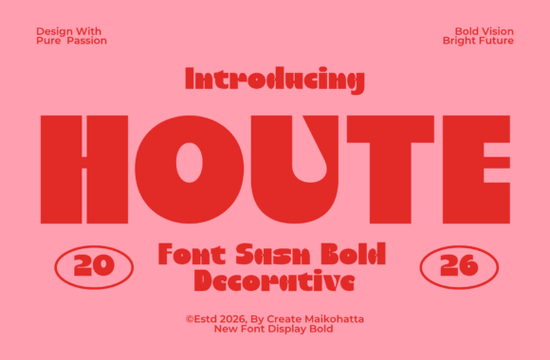
If you're looking for a bold, friendly display font that brings retro charm without feeling dated, Houte Font is worth your attention. It’s not just another vintage-inspired typeface it’s designed with real usability in mind: thick letterforms, soft curves, and thoughtful details that hold up beautifully on posters, t-shirts, social posts, and packaging. Whether you’re a small business owner updating your brand, a POD seller testing new merch designs, or a hobbyist crafting greeting cards and wall art, Houte works where it matters most large sizes, high visibility, and quick visual impact.
What makes Houte different from other retro fonts?
Many fonts borrow from the 70s and 80s, but few balance nostalgia with modern legibility like Houte does. Its letters are generously spaced and confidently rounded not overly tight, not too loose and each character has subtle personality (like the gently flared terminals on uppercase “E” and “F”). Unlike some decorative fonts that fall apart at smaller sizes, Houte stays clear and readable even down to ~36pt in print layouts. That flexibility means you can use it across multiple touchpoints: a logo lockup, Instagram story headline, and product label all with consistent tone.
It’s also a sans-serif font, which helps it feel grounded and approachable. Sans-serifs often read faster and cleaner than serif or script fonts, especially in digital contexts. If you’ve tried pairing a retro script with a plain sans-serif and felt something was off, Houte bridges that gap it’s decorative enough to stand alone, but neutral enough to pair well with simpler typefaces like basic geometric or humanist sans-serifs.
Where does Houte work best?
Think about where your audience sees your message first:
- Branding & logos Especially for cafes, boutiques, vinyl shops, or wellness studios wanting warmth and confidence without stiffness.
- Social media graphics Works well on Instagram carousels or Pinterest pins where bold contrast grabs attention in feeds.
- Print-on-demand products T-shirt prints, tote bags, mugs, and stickers benefit from its strong silhouette and friendly energy.
- Editorial design Magazine covers, zine headers, or event posters where you want instant recognition and mood-setting.
It’s less suited for long paragraphs or body text this is intentional. Houte is a display font, not a text font. That distinction matters if you’re building a full brand system: you’ll likely pair it with something more functional for supporting copy. For example, Marykate Font shares its friendly, rounded sensibility but reads more easily at smaller sizes making them natural partners in a two-font toolkit.
How to use Houte without overdoing it
A common mistake is treating bold display fonts like everyday tools. With Houte, less is more. Try these practical tips:
- Use it for one key element per layout usually the main headline or logo and keep supporting text in a simpler, highly legible font.
- Leave generous space around it. Its weight needs breathing room to shine.
- Test how it looks printed. Some screens exaggerate contrast; actual ink on paper may soften edges slightly.
- Avoid stretching or distorting the font it’s carefully balanced as-is.